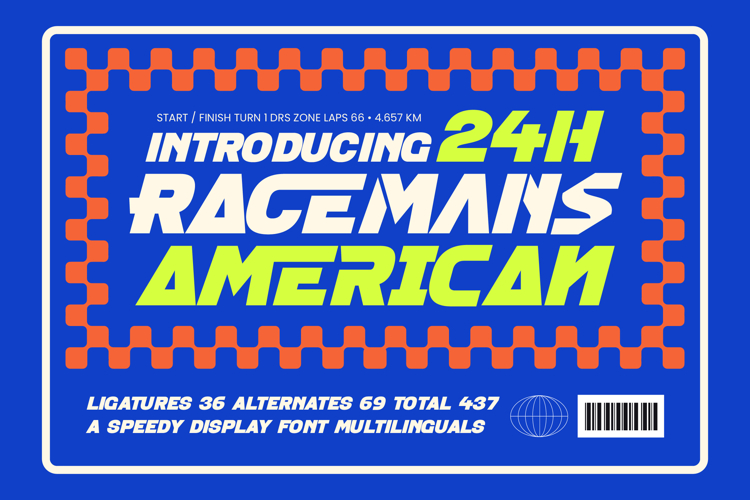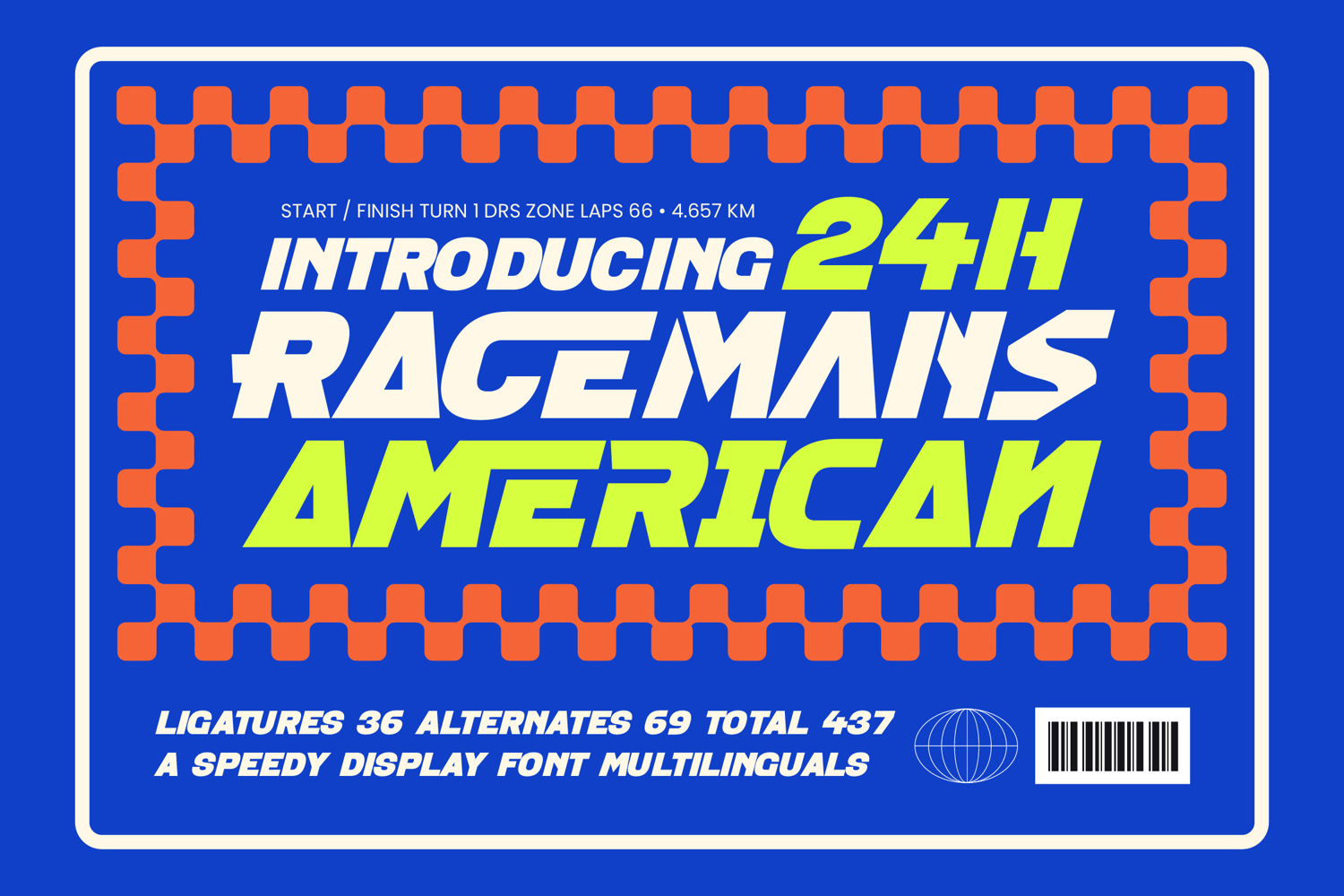
Racemans American Speedy Display Font
Racemans American – Speedy Display Font
Accelerate your creative impact with a typeface engineered for pure momentum and power. Racemans American – Speedy Display Font is a high-octane display face designed to capture the essence of velocity through its aggressive slant and heavyweight proportions. This premium display font delivers an immediate sense of urgency and competition, making it the definitive choice for projects that demand a bold visual presence. By blending modern industrial aesthetics with a classic racing spirit, it provides a unique typographic voice that stands out in any high-energy environment.
Engineered for professional performance, this typeface offers unparalleled technical flexibility for the modern global designer. With its extensive multilingual support, Racemans American – Speedy Display Font adapts seamlessly across global markets, making it incredibly versatile for international projects. Boasting a comprehensive set of 437 total glyphs, including 36 ligatures and 69 alternates, this font allows for a highly customized typographic experience. Such technical depth ensures that your messaging remains consistent and powerful regardless of the linguistic or regional context.